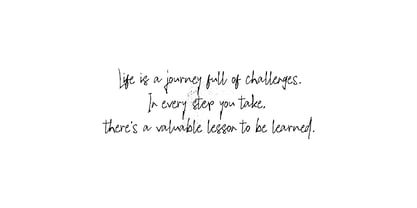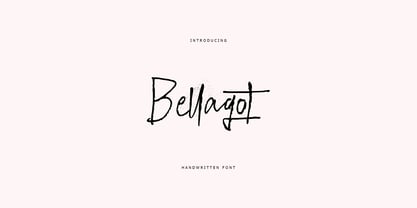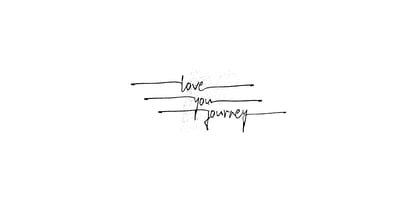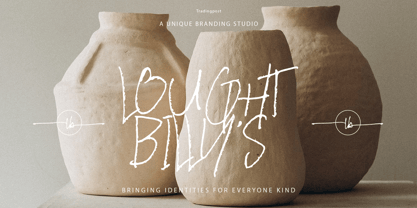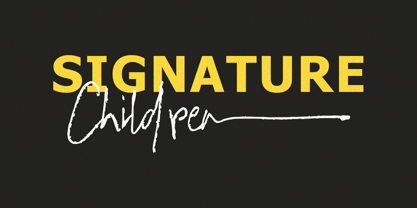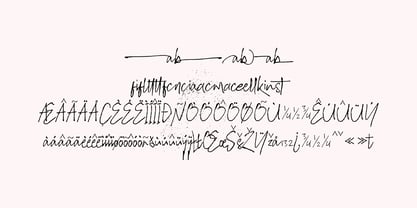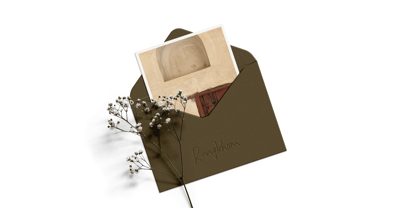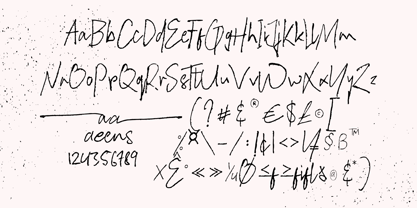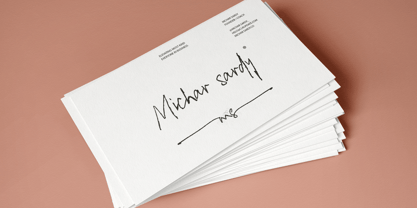
Bellagot
The Bellagot Font Family was designed by Alam Syahril and published by Realtype. Bellagot contains 1 styles. More about this family
INTRODUCING BELLAGOT HANDWRITING FONTS. Bellagot is a natural brushed font with a dirty textures. This font will give you a fresh and edgy looking design and will look beautiful with offers, fashion magazines, logos & more. Bellagot Brush contains upper and lower case characters, numbers and various punctuation marks that are ready for you to use with unique and charming characters.